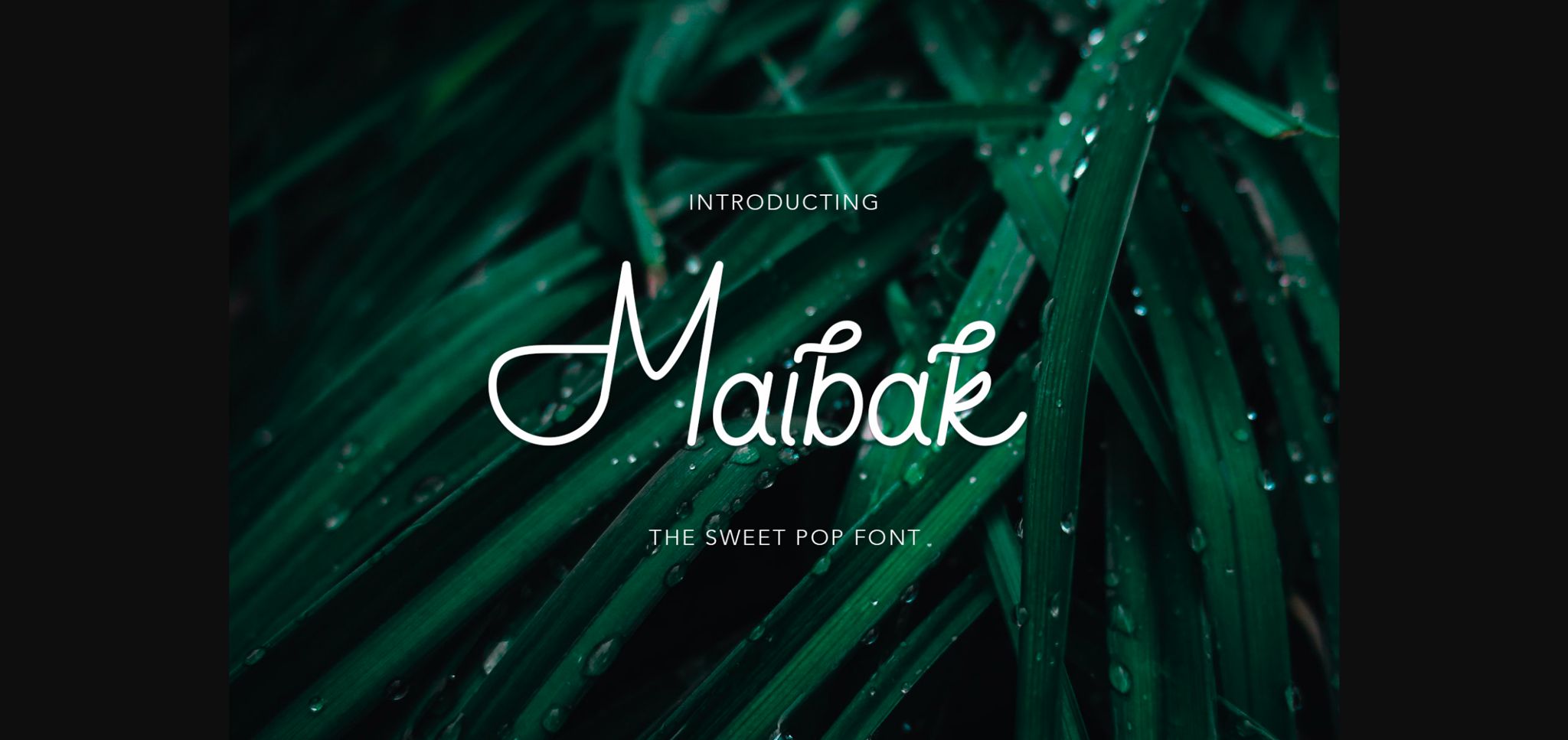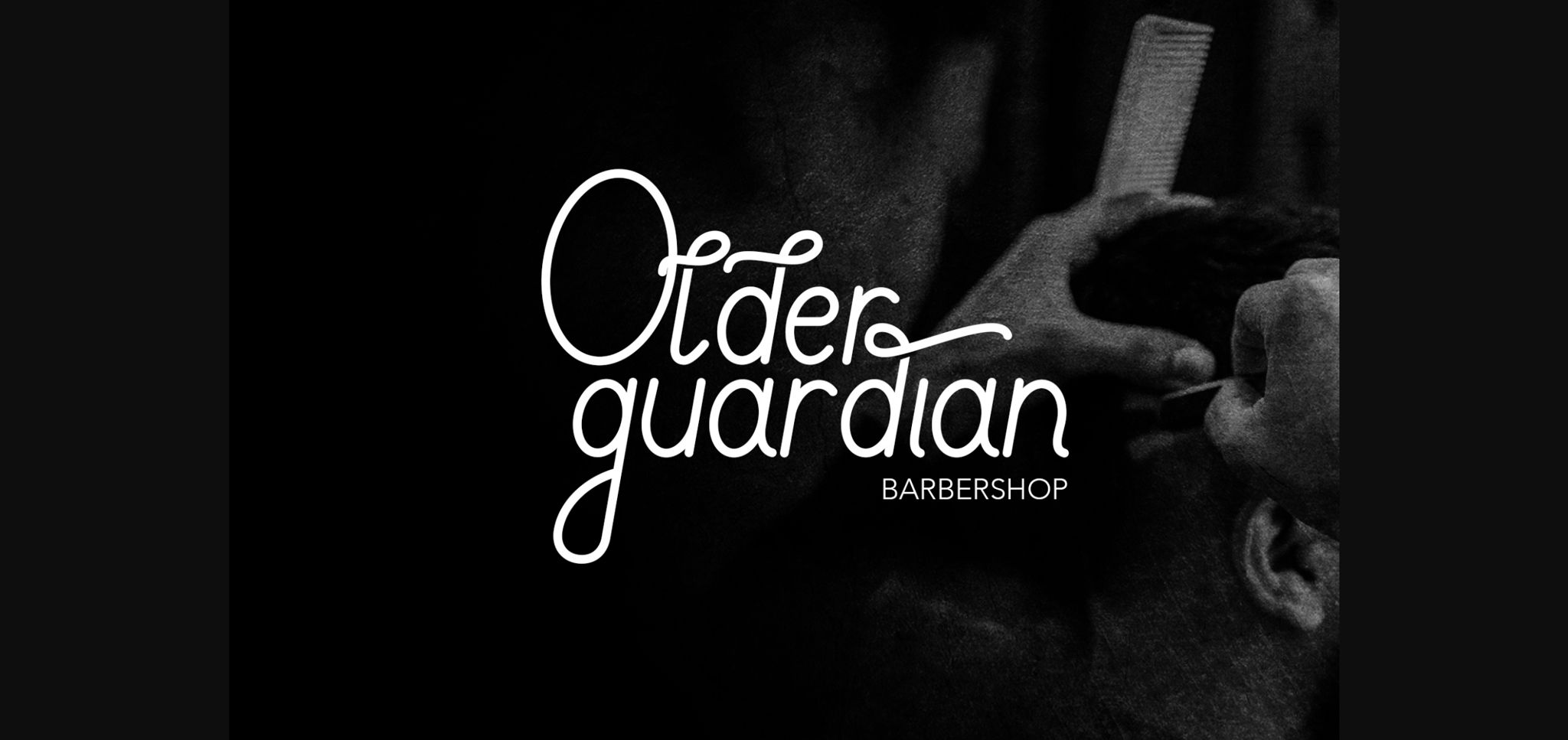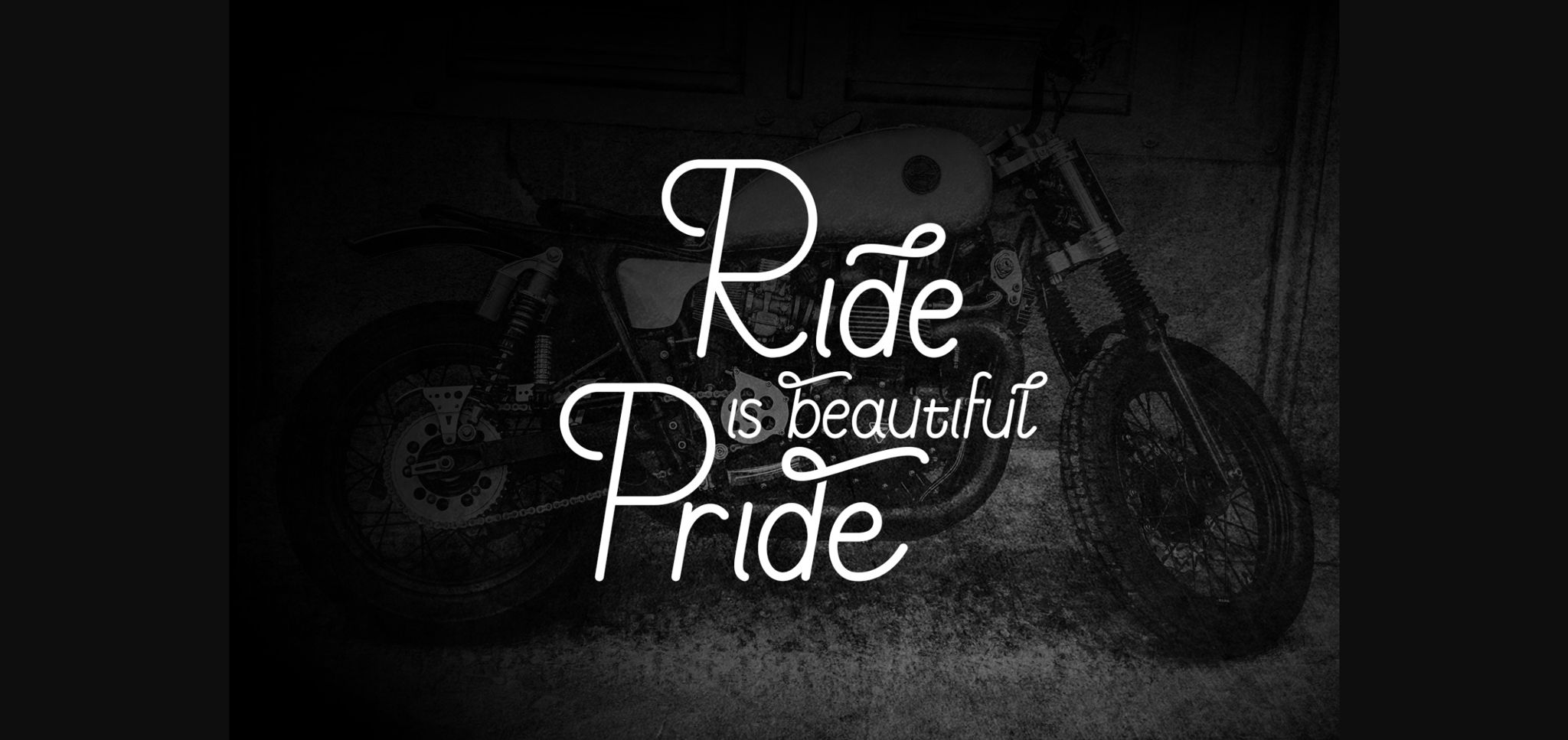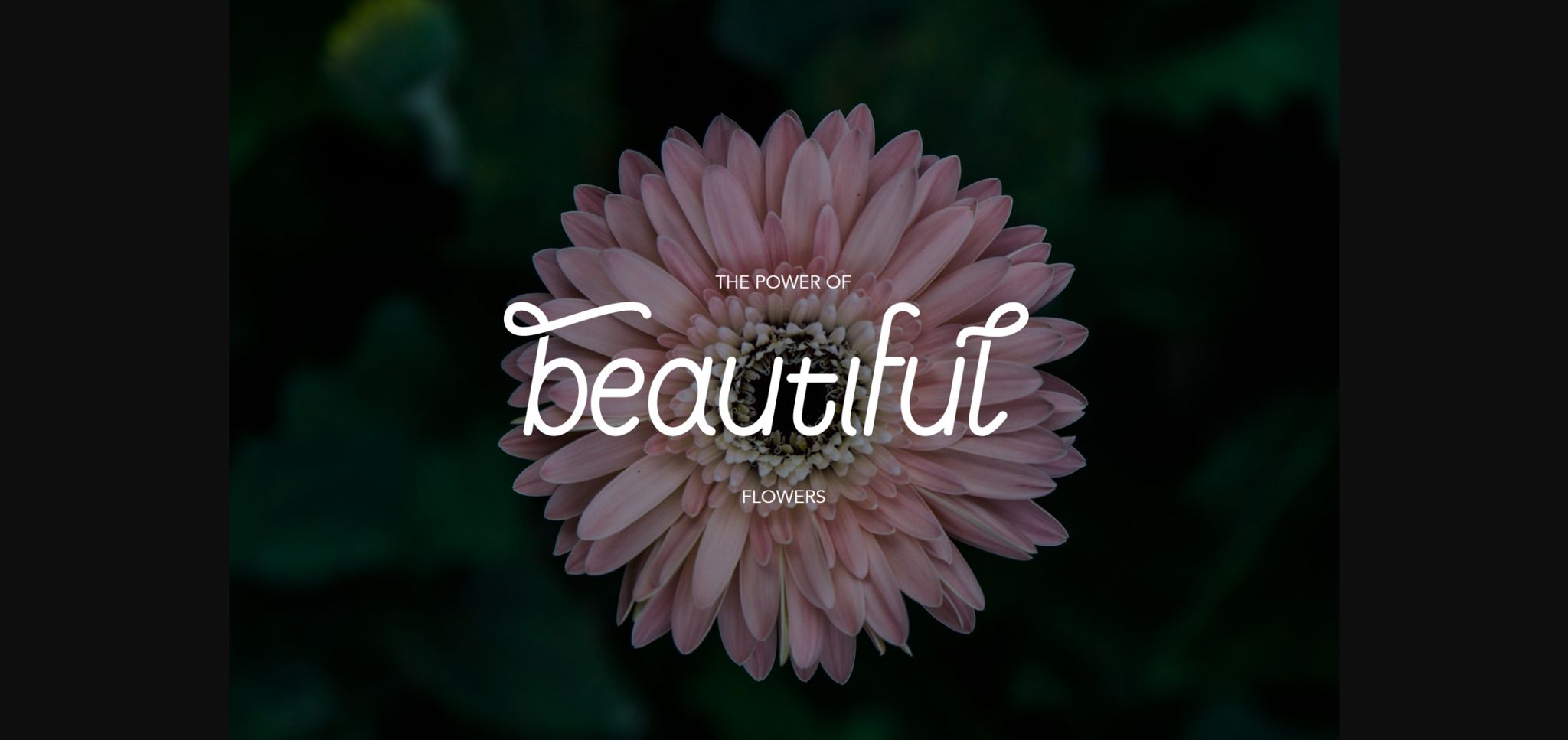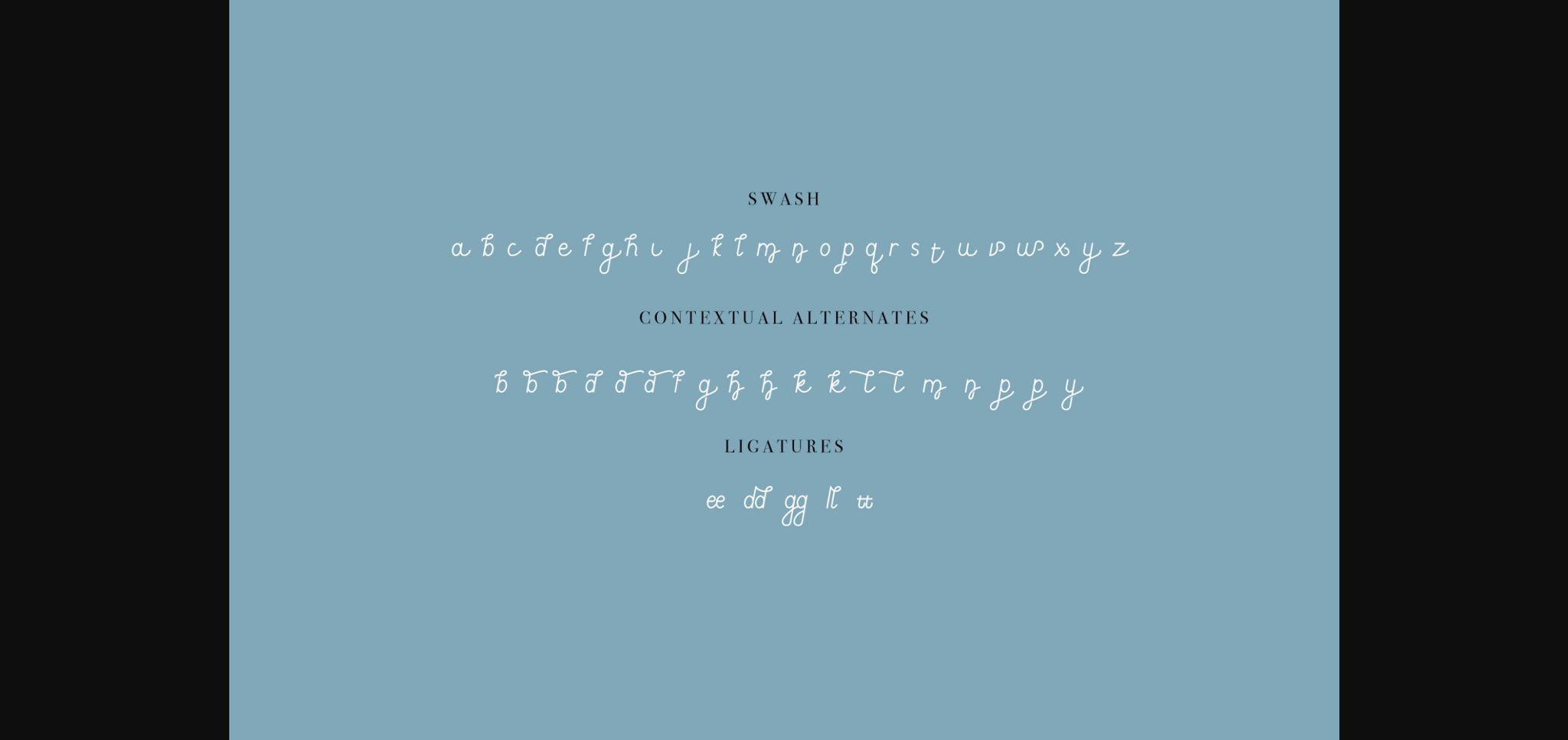
About Maibak Font
Maibak is a beautiful and flowing sans serif font. It will give your designs a unique touch! It is PUA encoded which means you can access all of the glyphs with ease! It features a varying baseline, smooth lines, gorgeous glyphs, and stunning alternates.